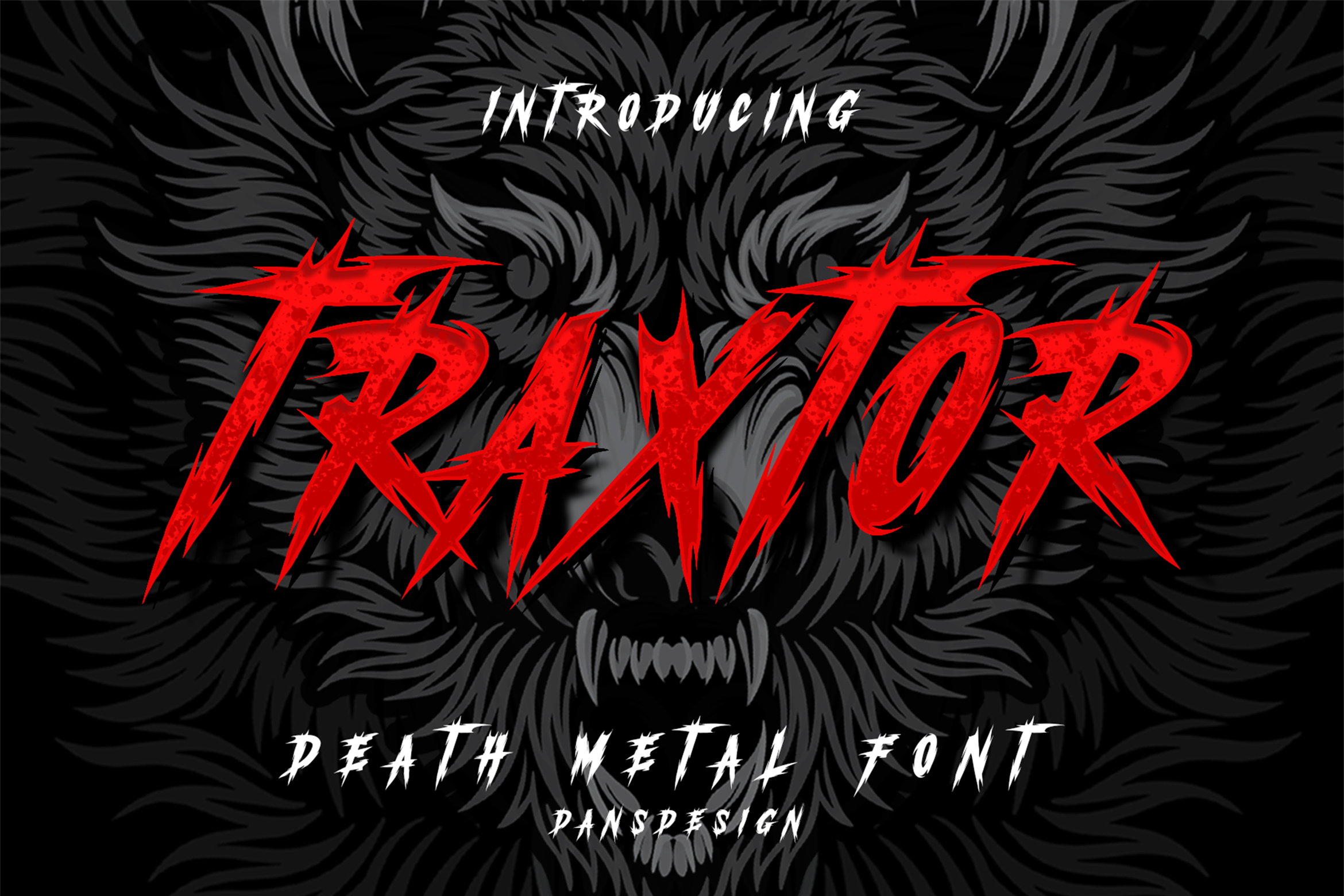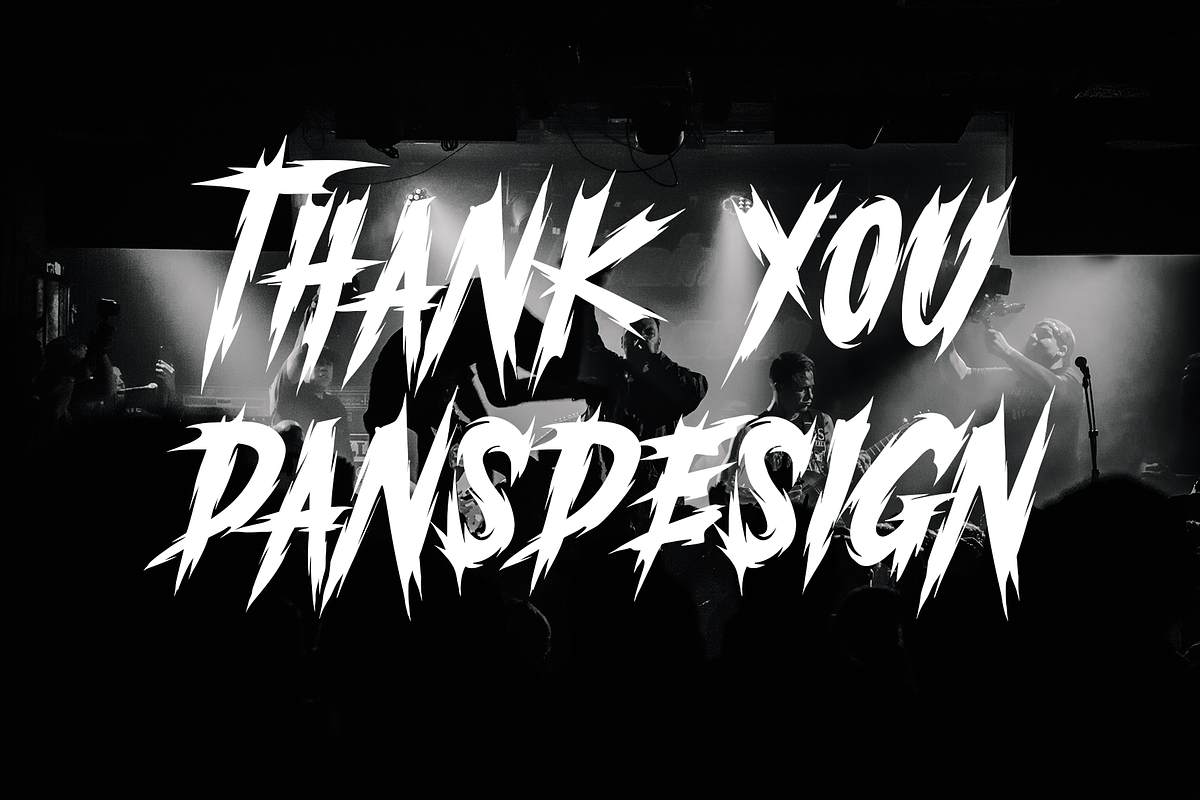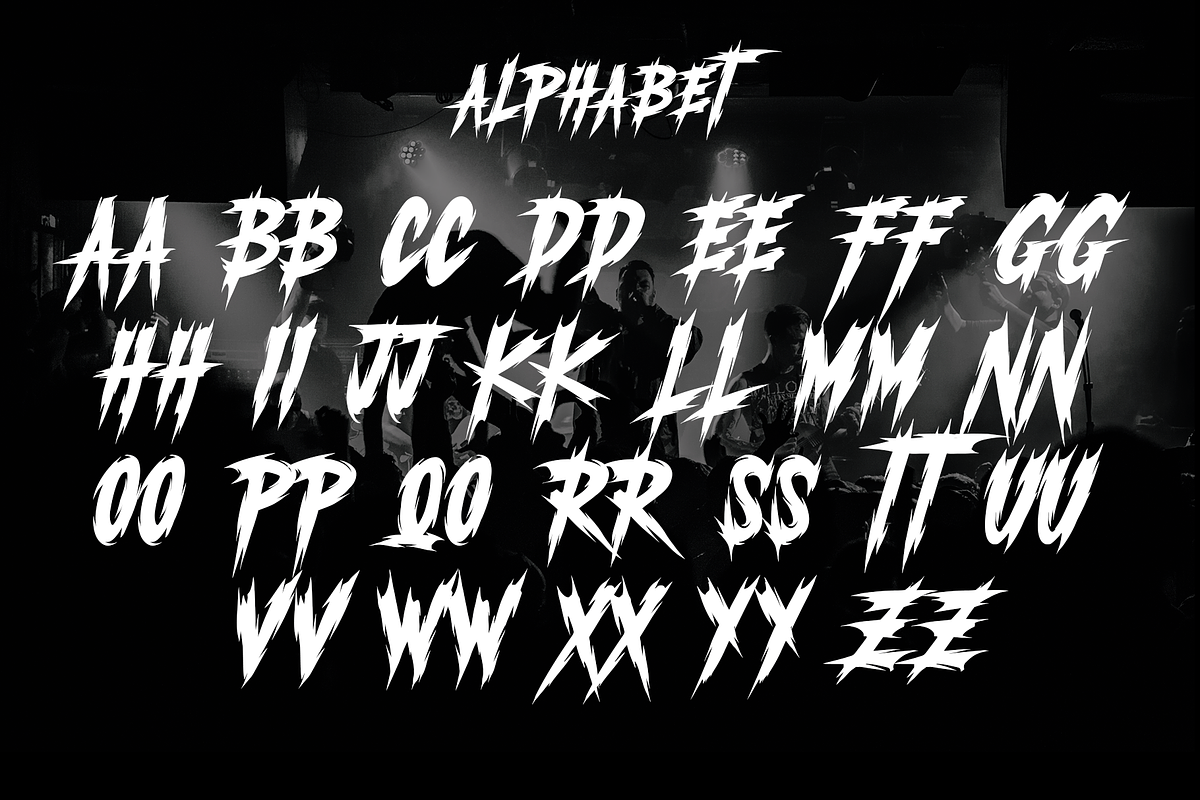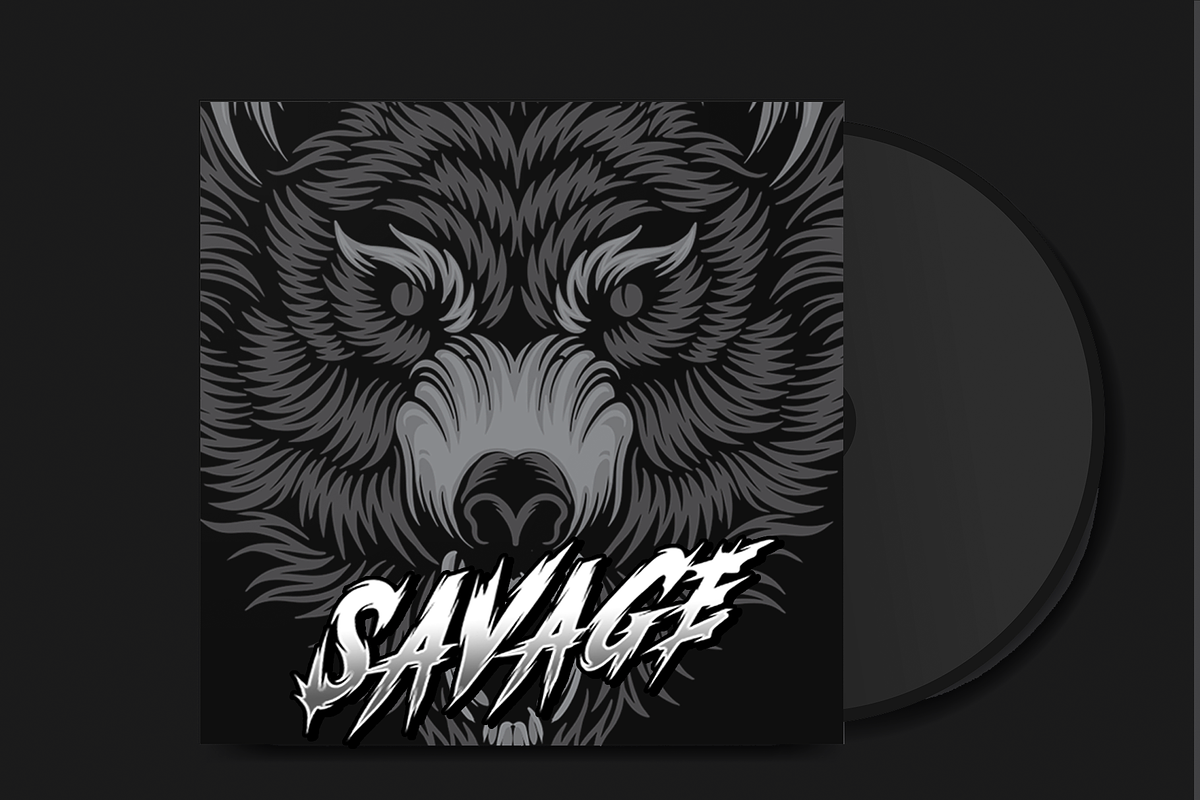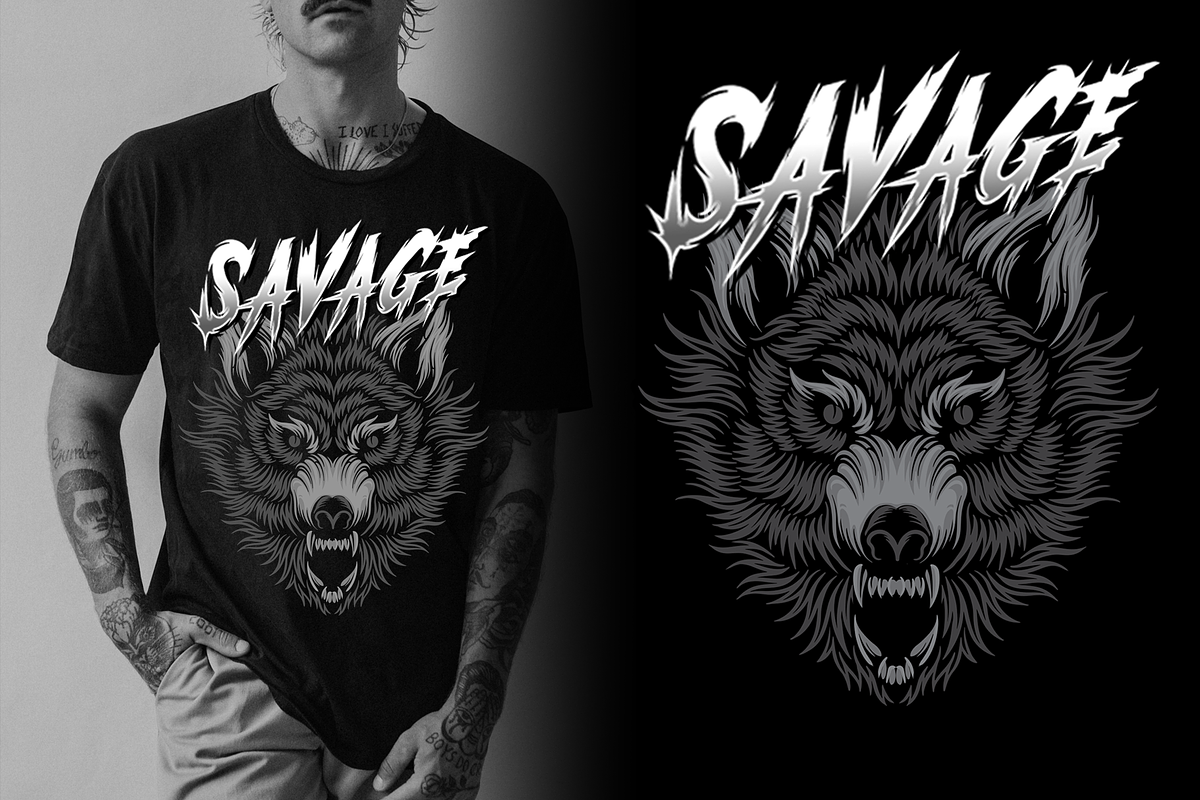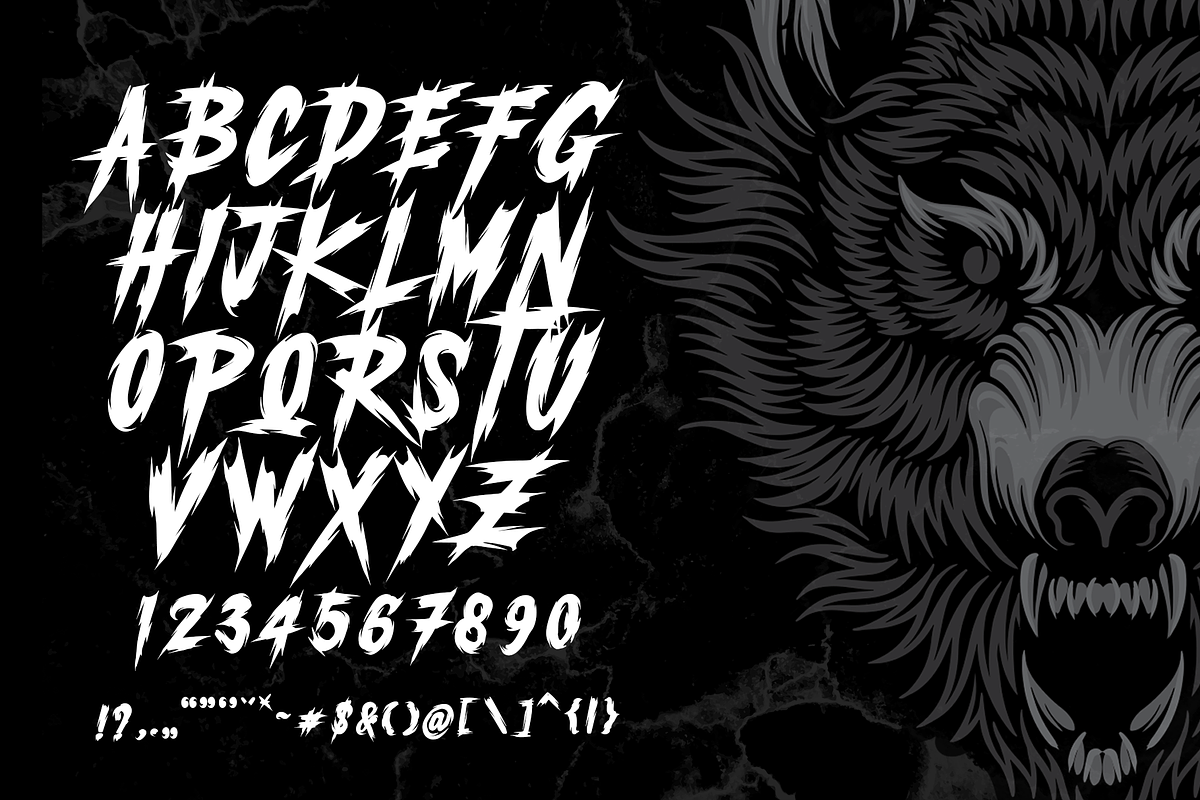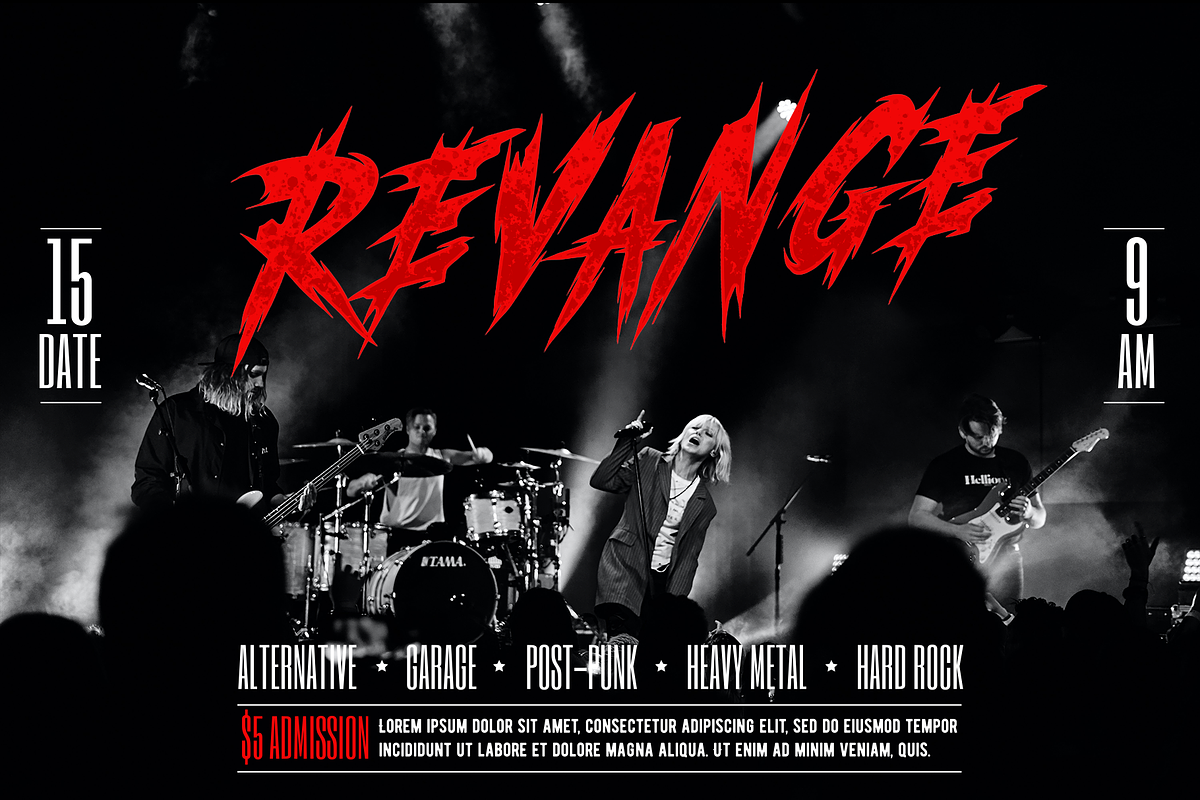
TRAXTOR Modern Metal Font
Dansdesign Proudly present TRAXTOR , This font is made with references to various letters that I combine and design with my style.
TRAXTOR a distinct, highly detailed, and Horror Metal Font font. It would make a great choice for exquisite retro-urban designs, tattoo business branding, logos, vintage designs, and more. TRAXTOR (OTF/TTF) TRAXTOR Slant (OTF/TTF)
TRAXTOR METAL FONT